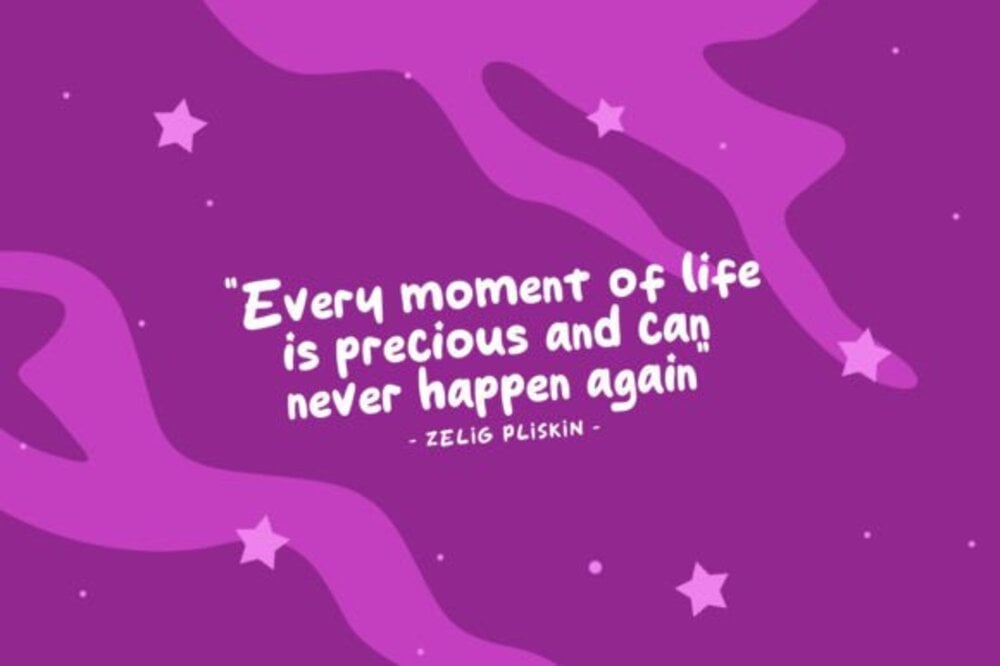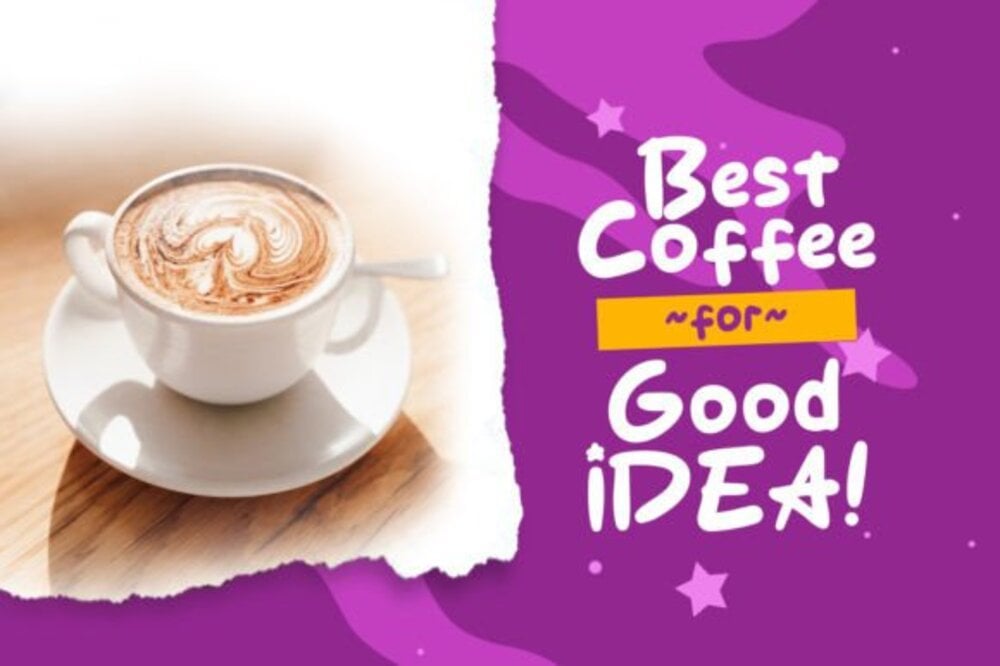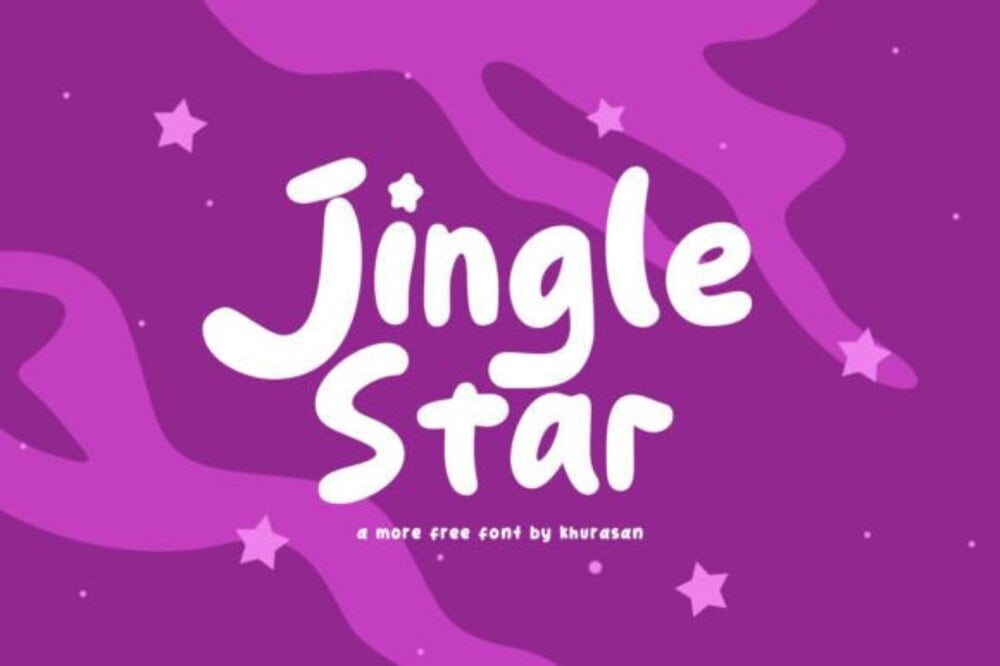
Jingle Star Font
Jingle Star is a cheerful and festive font that captures the magic of the holiday season. With whimsical curves and starry accents, it adds a playful sparkle to your designs. Perfect for Christmas cards, party invitations, or holiday-themed projects, Jingle Star brings warmth and joy, making every message feel bright and full of seasonal spirit.